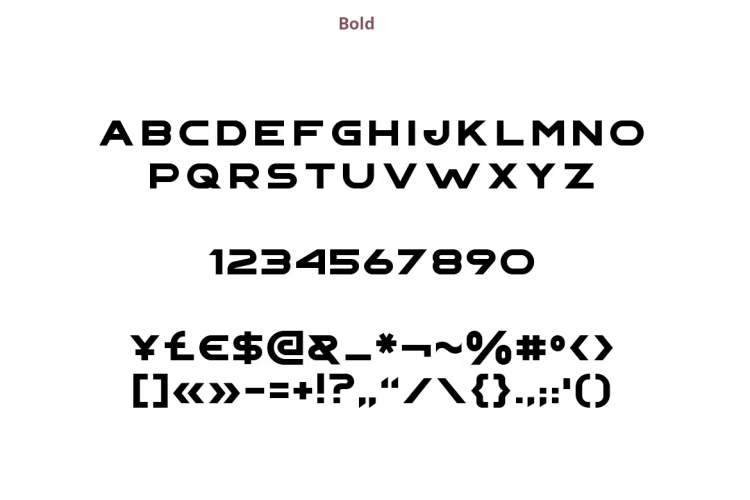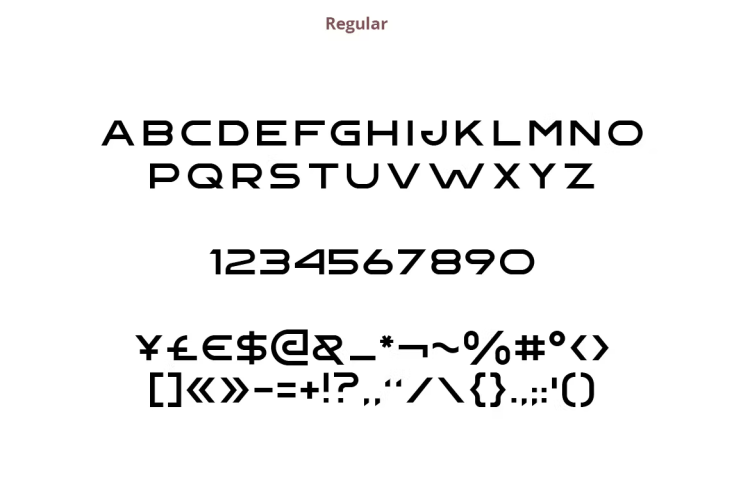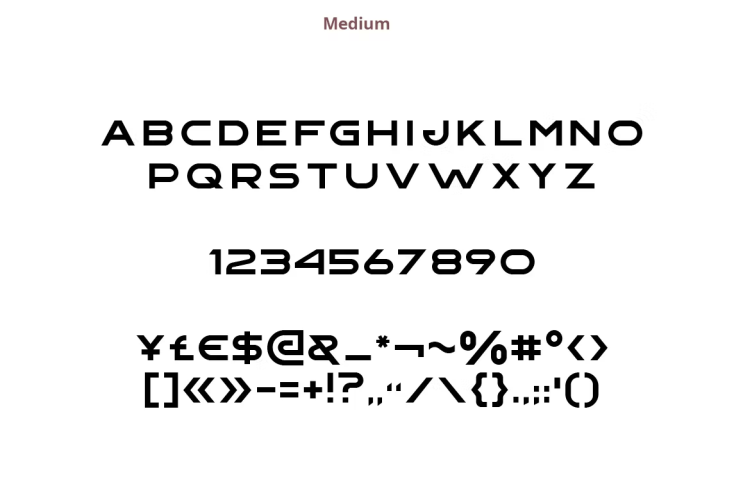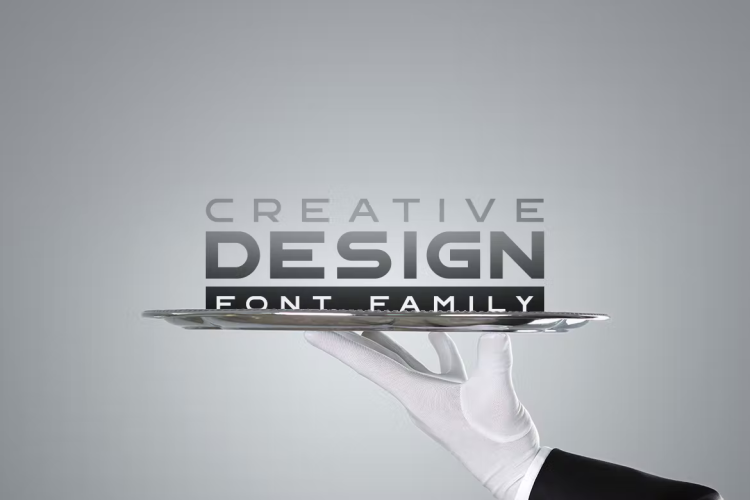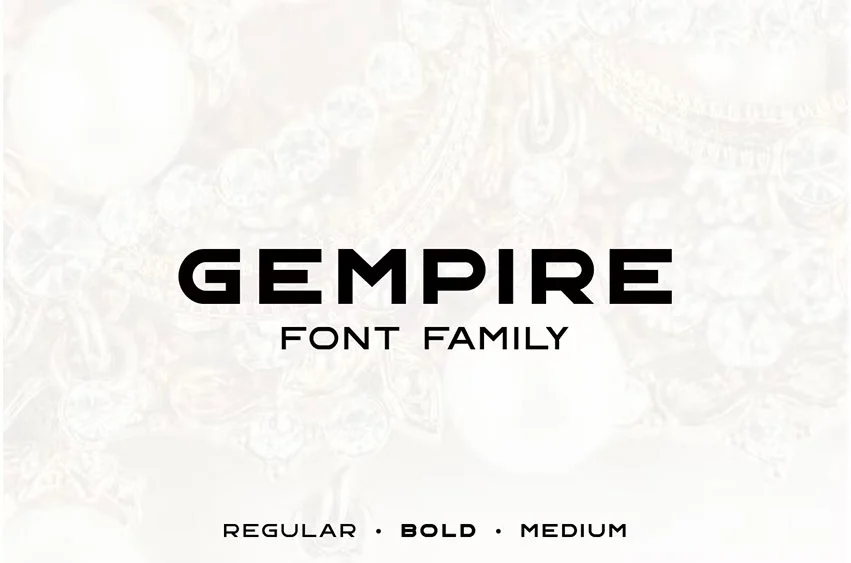
Gempire Font
Gempire Font is a font family made to create stylish luxury fashion style headers, titles, and text.
It consists of three types:
Gempire Font is a Sans Serif Fonts font that brings a professional and versatile look to your projects. Gempire Font is a font family made to create stylish luxury fashion style headers, titles, and text.